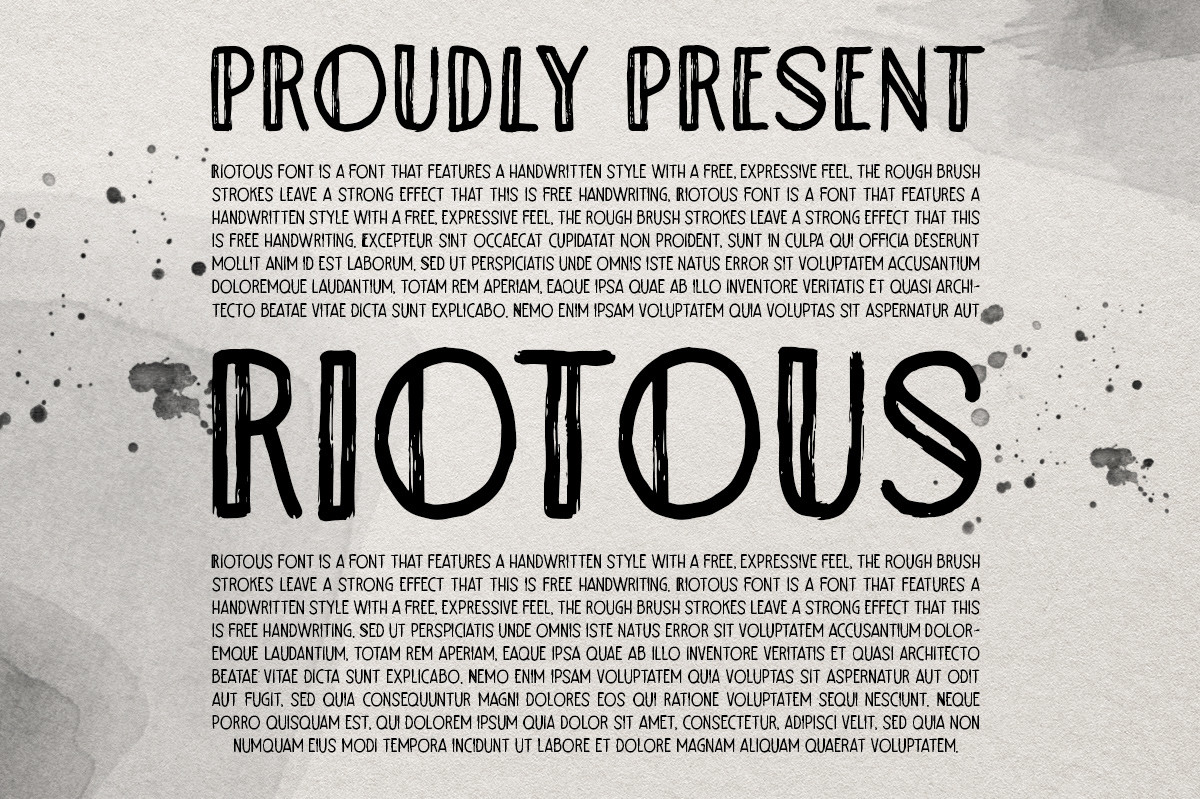
Riotous Font
Riotous Font is perfect for energetic music festival posters, explosive gaming brand logos, dynamic sports team graphics, bold nightclub promotions, high-energy event marketing, rebellious streetwear designs, adrenaline-pumping adventure sports branding, vibrant youth culture campaigns, intense action movie titles, and powerful protest art designs. This electrifying typeface brings raw energy to extreme sports equipment packaging, underground music venues, edgy fashion collections, explosive product launches, and revolutionary social movement materials.
Riotous Font is exciting because it embodies pure creative chaos and unbridled energy through its dramatically expressive letterforms. The font features bold, aggressive characters with sharp angles, dynamic curves, and explosive visual impact that instantly command attention and convey intense emotional power. Its distinctive construction showcases deliberate irregularities and powerful contrasts that create a sense of controlled chaos and creative rebellion. The font's explosive personality and unapologetic boldness make it perfect for brands seeking to communicate raw passion, revolutionary spirit, and unstoppable creative force in their visual communications.
The Riotous Font family includes various explosive styles: Regular, Bold, Black, Distressed, Grunge, Stencil, Outline, Shadow, Splatter, Condensed, Extended, and Destructive variants. Each family member maintains the core rebellious DNA while offering different levels of intensity for diverse high-energy design applications. The comprehensive font collection ensures consistent explosive branding across revolutionary campaigns, youth-oriented products, and high-impact marketing materials.
Whether you're creating revolutionary brand identities, designing high-energy event promotions, developing explosive gaming graphics, or crafting rebellious marketing campaigns, Riotous Font delivers unmatched visual intensity and creative power. The font's distinctive explosive personality excels in headlines, logo design, poster applications, and high-impact media where creative revolution and unstoppable energy are essential.